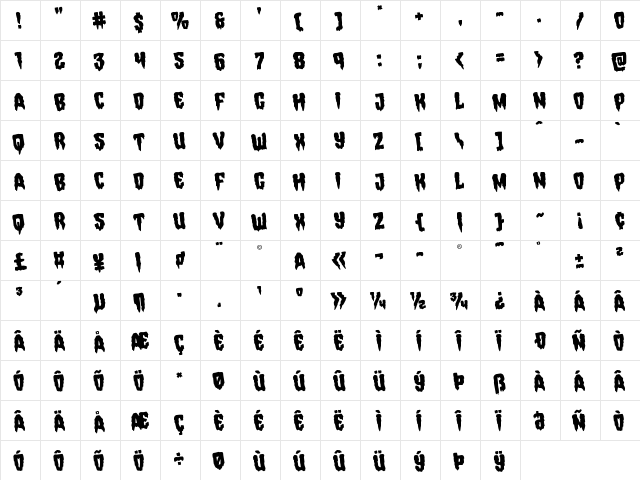
Hemogoblin Rotated Regular Font Preview
Hemogoblin Rotated Regular
Design Context for Hemogoblin Rotated Typeface
Hemogoblin Rotated is a composed and adaptable typeface that performs quietly and consistently across a wide range of design contexts.